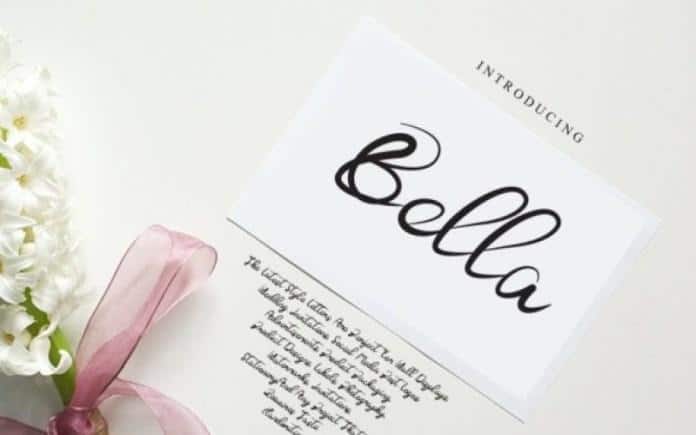
Glad to introduce you a new Bella Font is a stylish and incredibly elegant script font. It looks stunning on wedding invitations, thank you cards, quotes, greeting cards, logos, business cards and every other design which needs a handwritten touch.